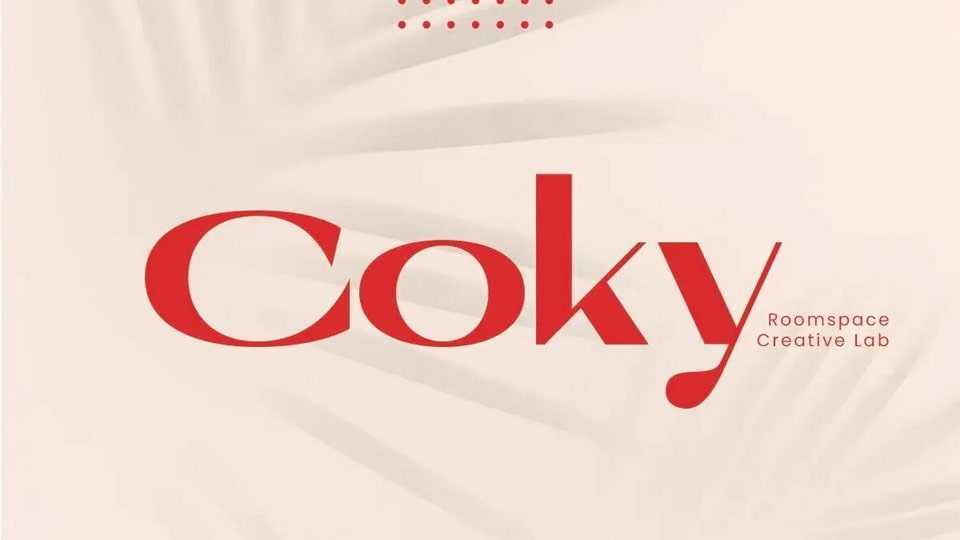
Download Coky font, a sophisticated and versatile serif typeface. Coky blends timeless elegance with modern aesthetics, making it an ideal choice for a wide range of creative projects.